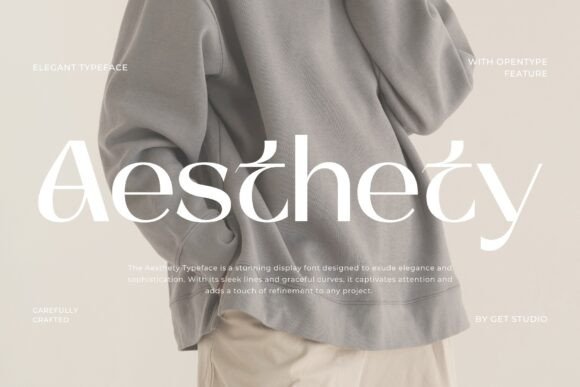
The Aesthety Font: Elevate Your Designs with Elegance and Sophistication
I’ll never forget the time I was working on a branding project for a luxury client, and I was struggling to find the perfect font to convey their high-end aesthetic. The client wanted something that exuded elegance and sophistication, but still felt approachable and refined. After hours of searching, I stumbled upon the Aesthety Typeface, and it was love at first sight! ✨ With its sleek lines and graceful curves, it instantly captivated my attention and added a touch of refinement to my design.
So, what makes the Aesthety Font so special? Here are a few things I love:
- ✅ Elegant and sophisticated design: The Aesthety Font is perfect for high-end branding, luxury packaging, or refined editorial projects.
- ✅ Excellent legibility: Despite its elegant design, the font remains highly legible, even at smaller sizes.
- ✅ Versatile and adaptable: The Aesthety Font works beautifully for both headlines and body text, making it a great choice for a wide range of projects.
- ⚠️ Limited availability of certain characters: Some users have reported that certain special characters or glyphs are not available in the standard font set.
- 🤔 May require adjustments for certain languages: Depending on the language and script, some users may need to make adjustments to the font to ensure optimal legibility.
The Designer Inspiration Behind Aesthety Font
The Aesthety Font was designed with the goal of creating a typeface that exudes elegance and sophistication. The designer, inspired by classic luxury brands and refined editorial projects, aimed to create a font that would add a touch of refinement to any design. With its sleek lines and graceful curves, the Aesthety Font is the perfect choice for designers looking to elevate their designs with a touch of aesthetic charm.
| Author | getstudio |
| What is the Aesthety Font best suited for? | The Aesthety Font is perfect for high-end branding, luxury packaging, refined editorial projects, and any design that requires an elegant and sophisticated aesthetic. |
| Is the Aesthety Font suitable for body text? | Yes, the Aesthety Font is highly legible and can be used for both headlines and body text, making it a versatile choice for a wide range of projects. |